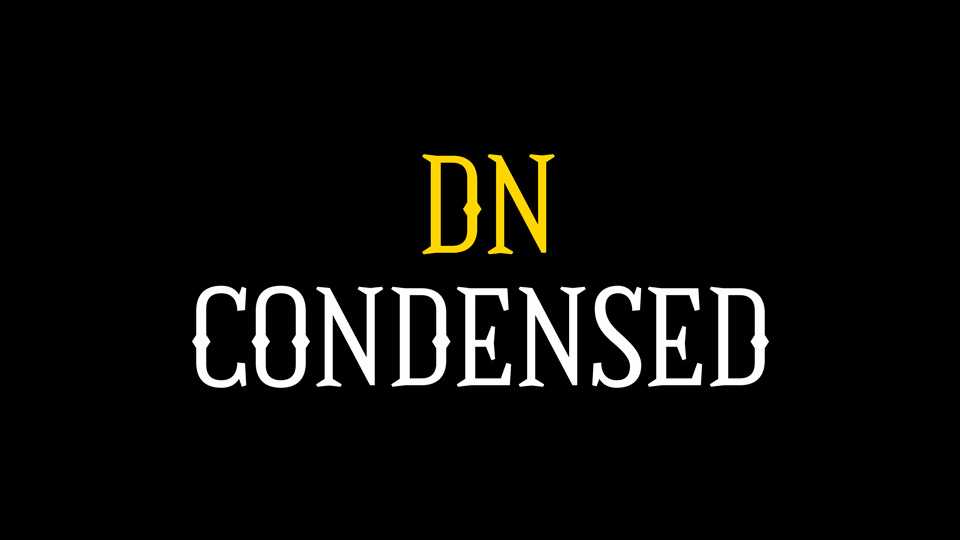
Download DN Condensed font, a decorative condensed capital serif typeface with a vintage feel. The font is perfect for headlines, posters, covers, badges and display use.
Designer: Daniel Nisbet